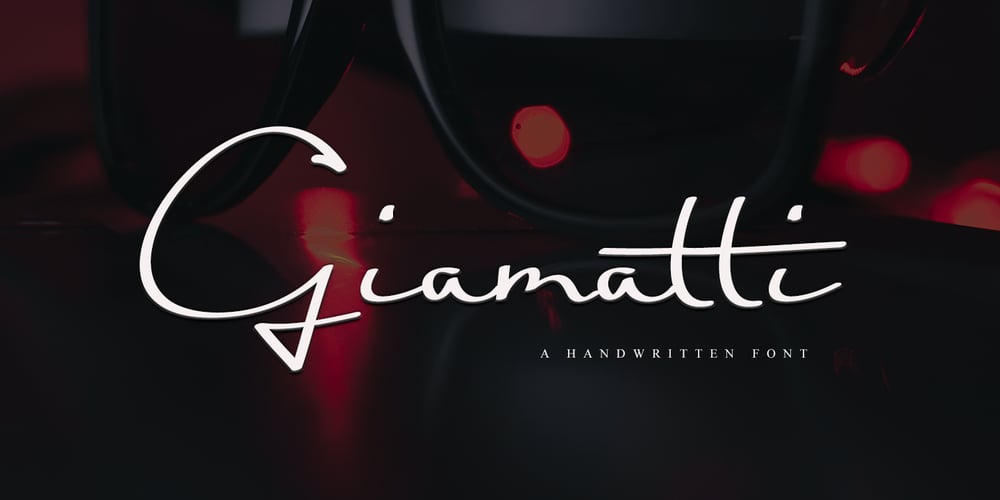
Giamatti
Giamatti font
Giamatti Font Family was designed by Febrianto Yuwono and published by Febri Creative. Giamatti contains 1 styles and family package options. Giamatti is a handwritten font made with its own uniqueness. Unique, beautiful, simple font but looks elegant and professional.This font is perfect for use as logos, signatures, product names, company names, brands, promotional adverts, and much more.